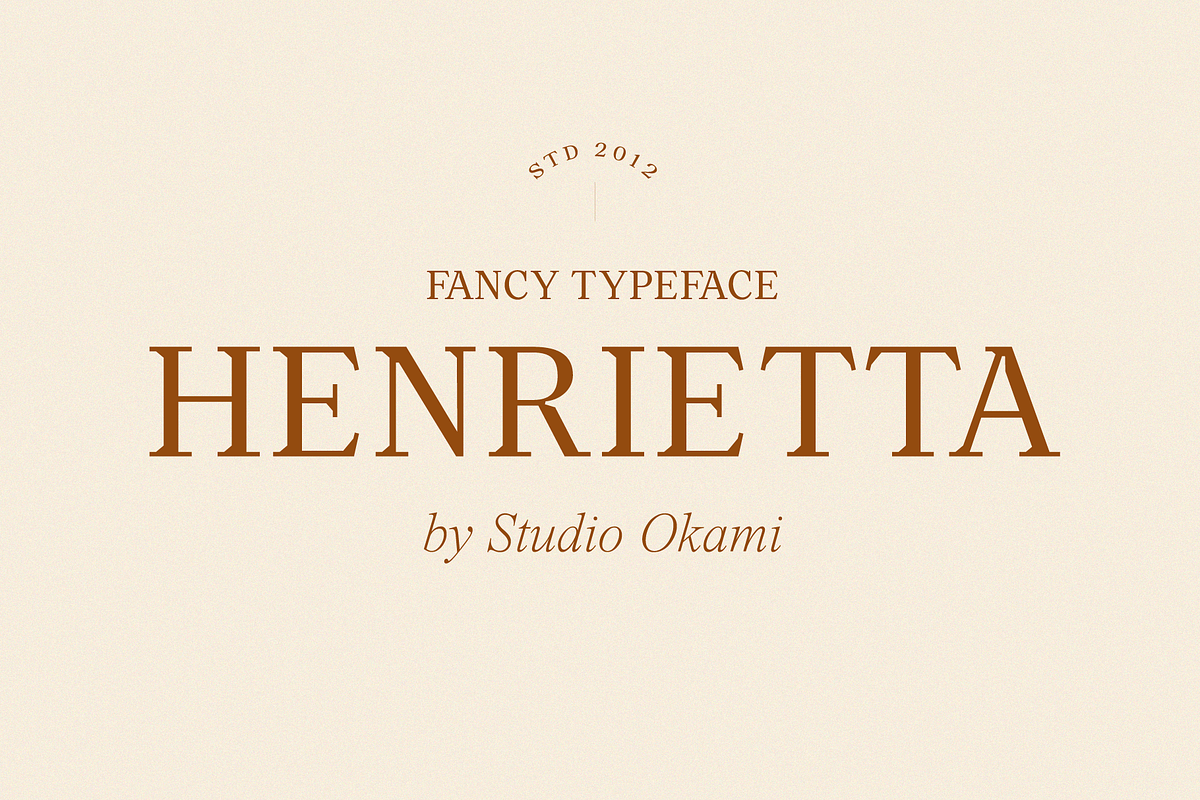
Henrietta Font (Fonts Pairing - Duo) Free Download is a beautifully balanced font pairing that combines a graceful script with a clean serif, making it perfect for elegant and versatile design projects. Ideal for wedding invitations, branding, editorial layouts, social media graphics, and product packaging, this duo delivers sophistication and harmony in every layout.
The script font brings a romantic, hand-lettered charm, while the serif adds structure and professionalism—allowing you to mix and match styles seamlessly for modern and timeless appeal.